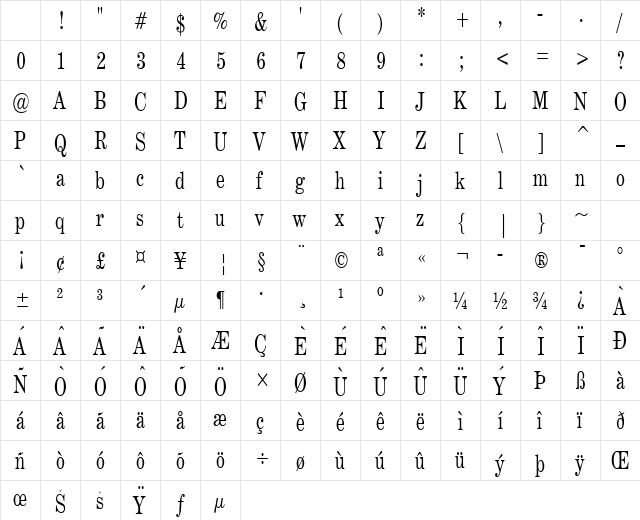
Annual Thin is a composed and adaptable typeface that performs quietly and consistently across a wide range of design contexts. Its slender proportions lend an understated elegance to any composition.